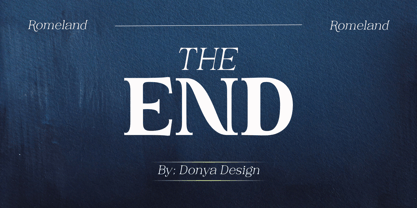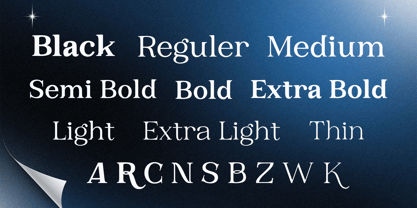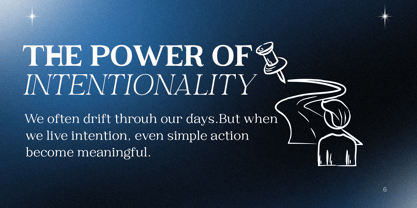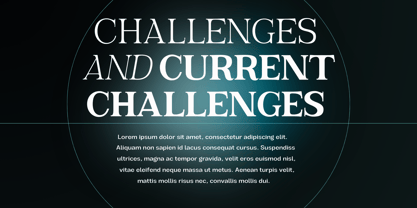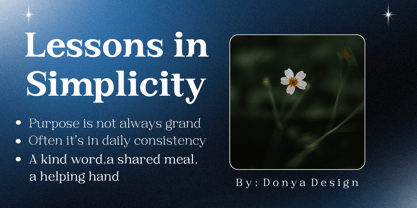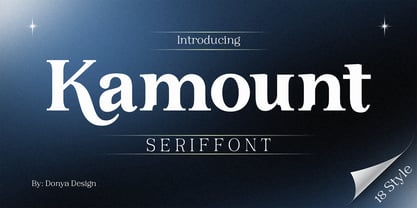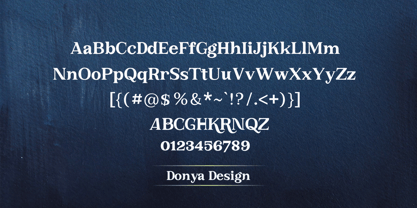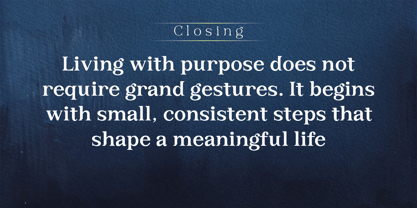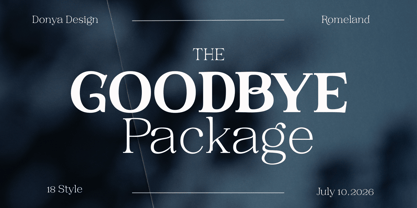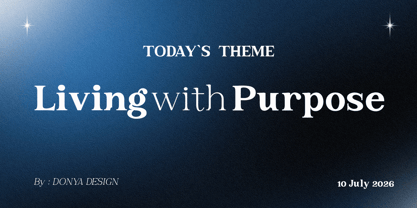
Kamount
by DonyaDesign
The Kamount Font Family was designed by Teuku Muslyawan and published by DonyaDesign. Kamount contains 19 styles and family package options. More about this family
Kamount is a refined serif typeface designed for elegance, readability, and expressive design. Featuring 18 meticulously crafted styles—9 upright and 9 matching italics—Kamount offers versatile flexibility for editorial layouts, branding, and sophisticated display typography.
With graceful curves, classic proportions, and refined contrast, Kamount evokes timeless serif traditions while embracing modern typographic needs. From the delicate Thin to the bold Black, every weight retains clarity and character, making it a reliable tool for both body text and headlines.
The italics are not merely slanted versions of the uprights; they are carefully drawn to convey fluidity and warmth, making them perfect for emphasis or an artistic touch.